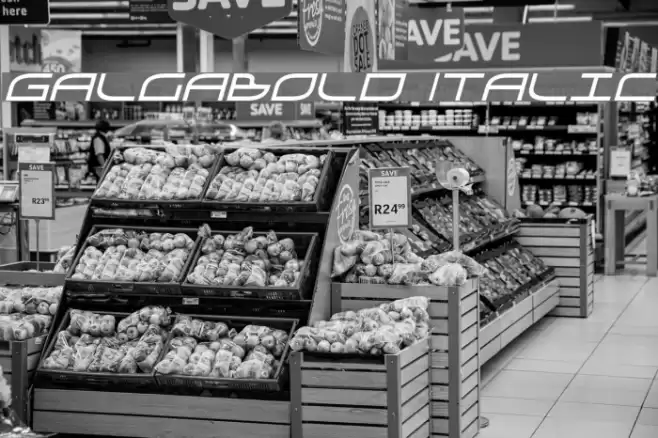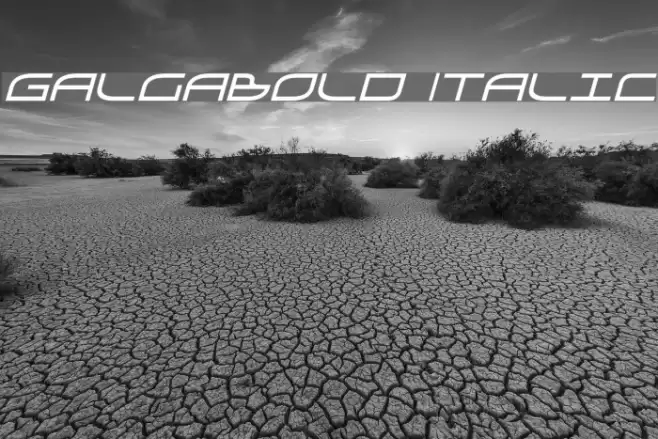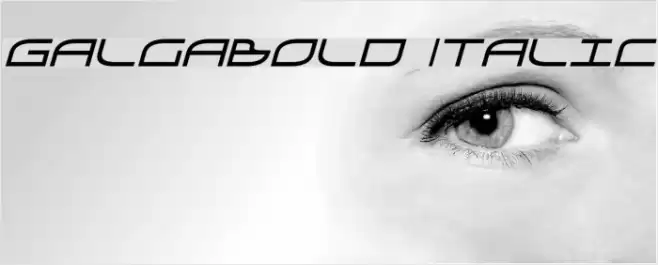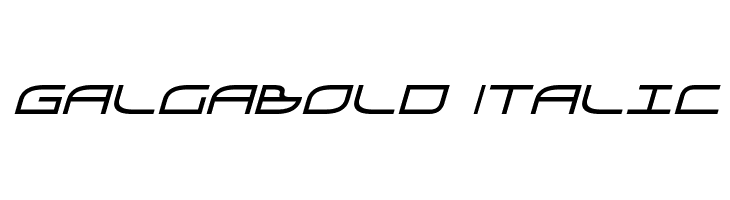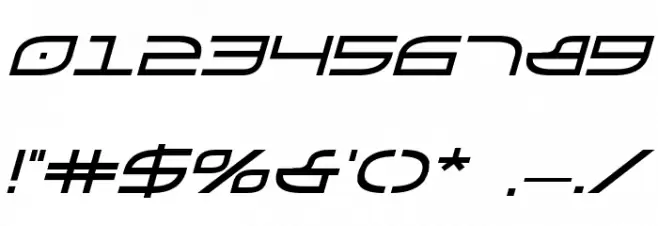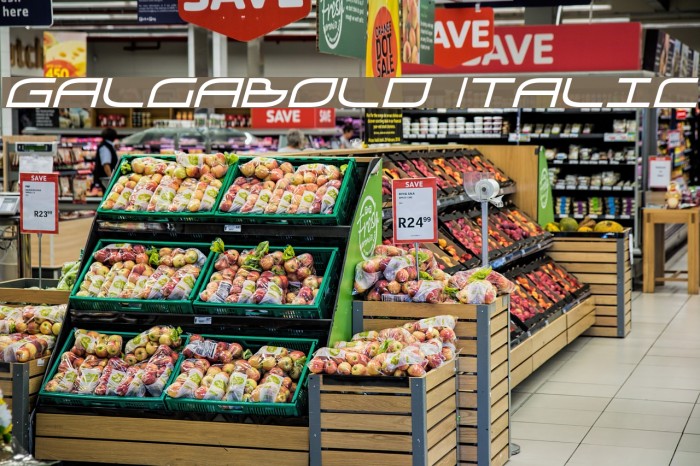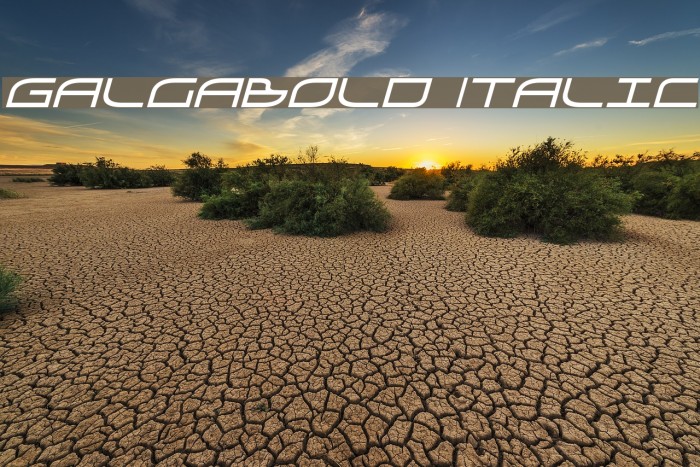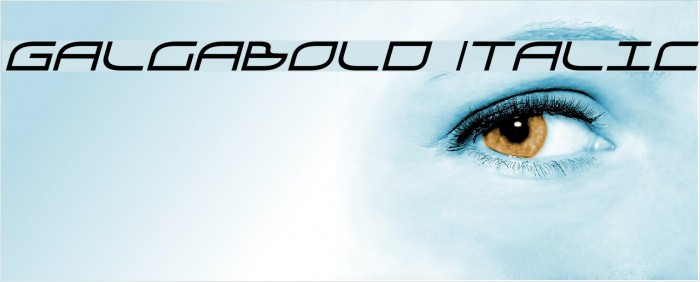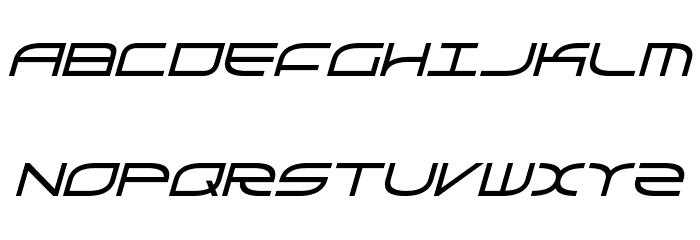
GalgaBold Italic Font
GalgaBold Italic Description
This font features a futuristic and sleek design, characterized by its angular and geometric letterforms. The characters are slightly italicized, adding a dynamic and forward-moving appearance. The strokes are consistent in weight, providing a uniform look across all characters. The font includes both uppercase and lowercase letters, numerals, and a variety of special characters. Its modern aesthetic makes it suitable for projects that require a contemporary and tech-savvy feel.
A futuristic, italicized font with geometric and angular design from Sci-fi fonts.
- Proposed Projects: Ideal for technology branding, sci-fi themed projects, modern logos, and digital interfaces.
- Overall Style: Futuristic
- Use Case: Logos, Headlines, Digital interfaces